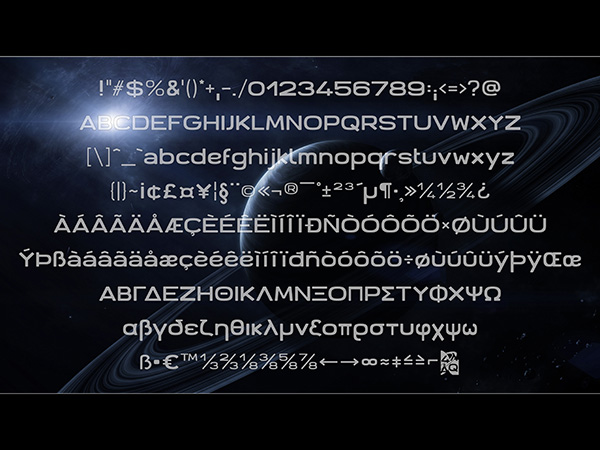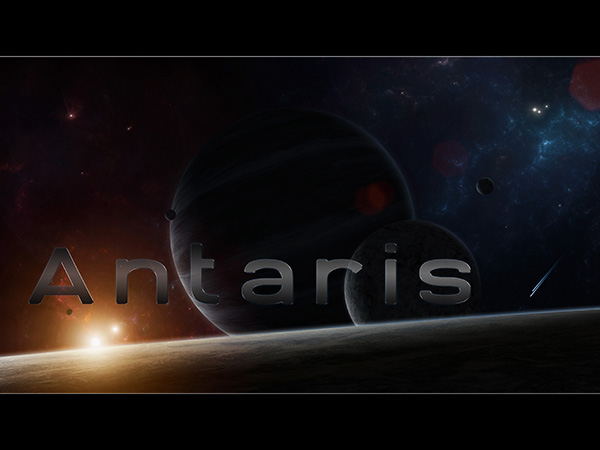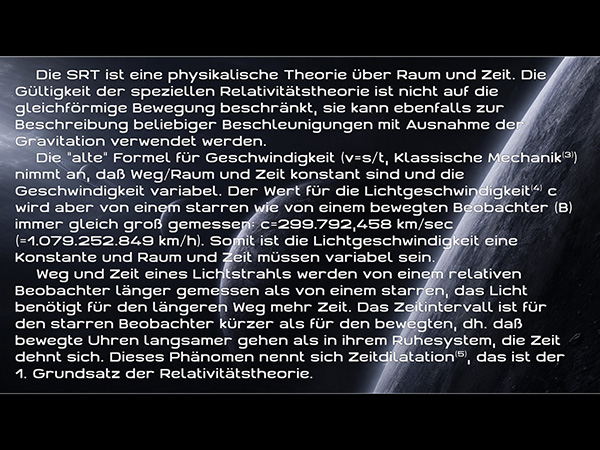
Introducing Antaris Font: A Strong, Clean, and Versatile Sans Serif
In the world of typography, fonts play a crucial role in conveying messages, expressing emotions, and creating visual identities. For designers, crafters, and typography enthusiasts, finding the right font can be a daunting task. However, if you’re looking for a strong, clean, and well-constructed font, look no further than Antaris Font. In this article, we’ll explore the features, benefits, and uses of Antaris Font, and why it’s a must-have for any design project.
The Characteristics of Antaris Font
Antaris Font is a legible sans serif font that boasts a clean and modern aesthetic. Its strong and well-constructed design makes it perfect for a wide range of applications, from body text to headlines. One of the standout features of Antaris Font is its exceptional legibility, even at smaller sizes. Whether you’re using it for print or digital media, Antaris Font ensures that your message is conveyed clearly and effectively.
Antaris Font is an incredibly versatile font that can be used in various contexts. Its clean design makes it suitable for body text, while its strong and bold appearance is perfect for headlines and displays. Whether you’re working on a branding project, creating a website, or designing a marketing material, Antaris Font is an excellent choice. Additionally, the font comes in a variation called Antaris Stencil, which adds an extra layer of creativity to your designs.
Antaris Font offers numerous benefits for designers and crafters. Here are a few:
- Improved Readability: Antaris Font’s exceptional legibility ensures that your message is conveyed clearly, making it perfect for body text and smaller sizes.
- Versatility: The font’s clean and strong design makes it suitable for a wide range of applications, from print to digital media.
- Creativity: The Antaris Stencil variation adds a creative twist to your designs, allowing you to experiment with different styles and aesthetics.
- Time-Saving: With Antaris Font, you can save time and effort in selecting and pairing fonts, as it can be used for both body text and headlines.
Use Cases for Antaris Font
Antaris Font is an excellent choice for various design projects, including:
- Branding and Identity: Use Antaris Font to create a strong and recognizable brand identity.
- Web Design: The font’s legibility and clean design make it perfect for web design, ensuring a great user experience.
- Marketing Materials: Antaris Font is ideal for creating marketing materials, such as brochures, flyers, and posters.
- Packaging Design: The font’s strong and bold appearance makes it suitable for packaging design, adding a touch of professionalism to your products.
In conclusion, Antaris Font is a strong, clean, and versatile sans serif font that offers exceptional legibility and a wide range of uses. Its clean design, strong appearance, and stencil variation make it a must-have for designers, crafters, and typography enthusiasts. Whether you’re working on a branding project, creating a website, or designing marketing materials, Antaris Font is an excellent choice. With its numerous benefits and use cases, Antaris Font is sure to become a staple in your design toolkit.